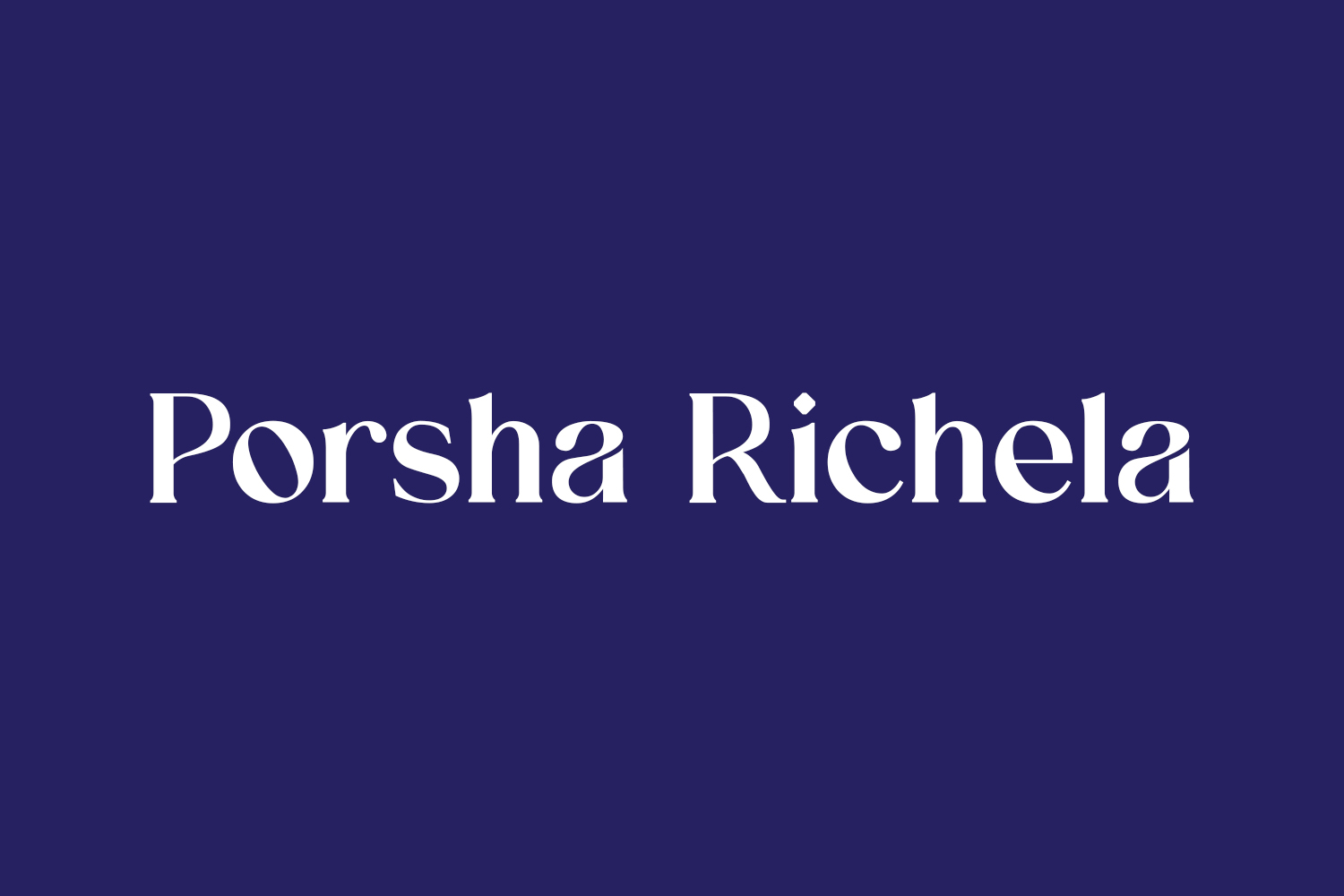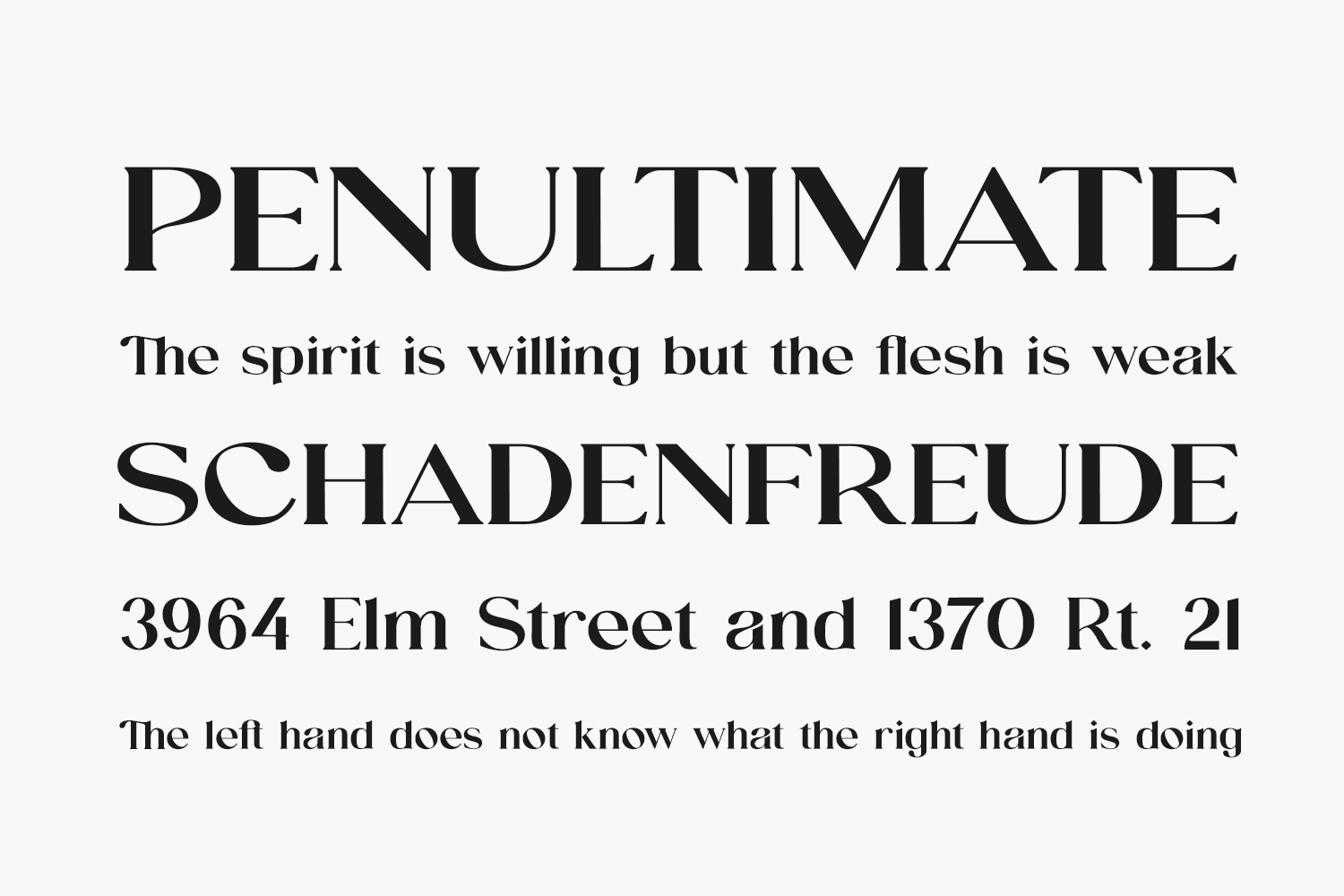
Porsha Richela Free Font – Bold Serif for Elegant & Strong Design Projects
Porsha Richela is a bold and expressive serif typeface designed by UI Creative to bring elegance and visual strength to your creative projects. With its thick strokes, high contrast, and refined detailing, this free decorative font works perfectly for crafting stylish logos, wedding invitations, book covers, packaging labels, and more. Available in OTF format — ideal for designers seeking a powerful script font that blends sophistication with modern clarity.
Why Choose Porsha Richela?
- Bold Serif Style: Combines strong serifs with dramatic swashes for a luxurious, impactful appearance perfect for lifestyle visuals.
- Ideal for Wedding & Invitations: Perfect for RSVP cards, formal stationery sets, or brand identities needing a romantic tone.
Where to Use Porsha Richela?
Porsha Richela shines across a variety of creative applications:
- Logos & Brand Identities: Adds warmth and charm to brand kits for lifestyle blogs, boutique shops, or fashion labels needing a warm tone.
- Social Media Graphics: Creates bold text overlays for Instagram Stories, TikTok videos, Pinterest pins, and YouTube banners with a signature-style appeal.
- Wedding Invitations: Brings romance to formal stationery sets, envelopes, and bridal name typography needing a hand-drawn feel.
- Packaging Design: Enhances product tags on candles, perfumes, artisanal goods, or handmade packaging requiring a premium look.
- Greeting Cards & Letters: Ideal for thank-you notes, birthday cards, love letters, and holiday cards with a personal touch.
Design Tips with Porsha Richela
- Glyphs: Uppercase (A-Z), lowercase (a-z), numerals, punctuation, basic special characters.